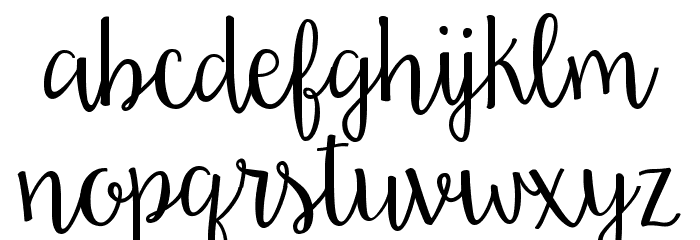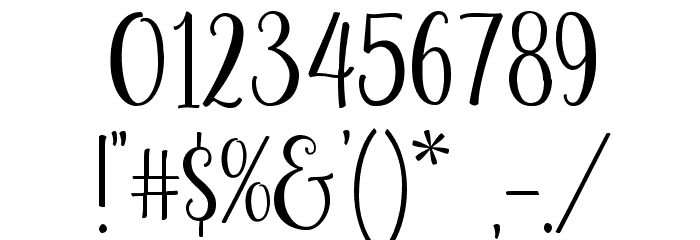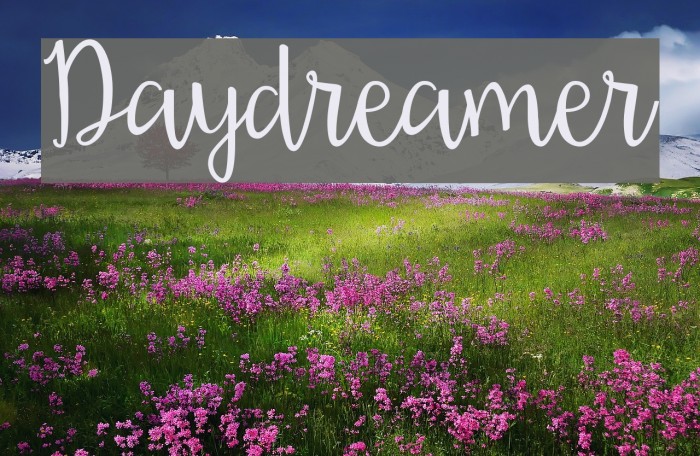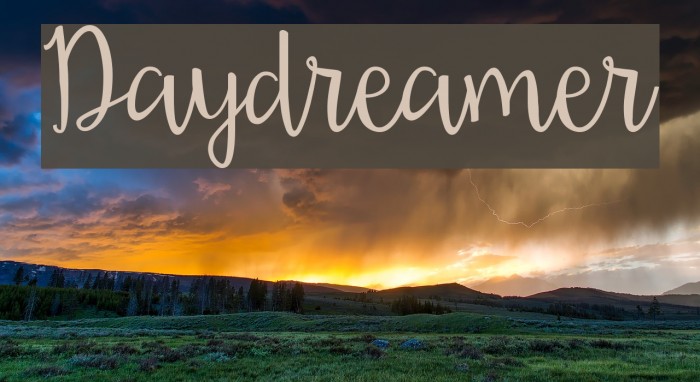
Daydreamer Font
This font features a whimsical and playful script style, characterized by its flowing, cursive letters that exhibit a sense of movement and elegance. The uppercase letters are distinct with their tall, looping ascenders and descenders, giving them a lively and dynamic appearance. The lowercase letters complement this with a more rounded and softer form, maintaining readability while adding a touch of charm. The numerals are consistent with the overall style, featuring similar curves and loops. Special characters are thoughtfully designed to match the aesthetic, ensuring a cohesive look across all text. This font is ideal for projects that require a personal, handwritten feel, such as invitations, greeting cards, or branding materials.
A whimsical, playful script font with elegant, flowing cursive letters.
- Proposed Projects: Ideal for invitations, greeting cards, branding, and any project needing a personal touch.